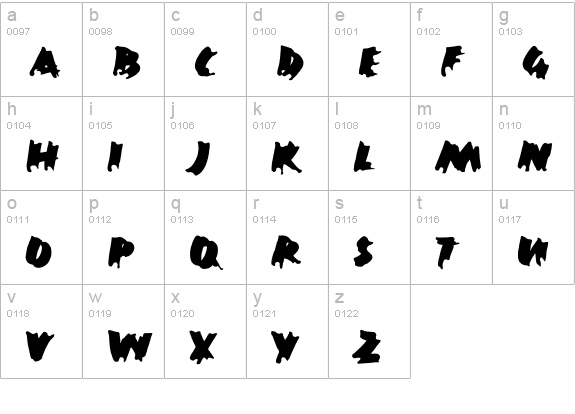
Ekttor Bold is a strong, high-contrast variant in the Ekttor typeface family \xE2\x80\x94 well suited to headlines, attention-grabbing titles, and strong calls-to-action.
Ekttor Bold font is a stylish and modern typeface that exudes confidence and boldness. With its strong, thick lines and sharp edges, this font is perfect for making a statement in any design project. Whether you're creating a striking poster, eye-catching logo, or impactful branding materials, Ekttor Bold will not disappoint. The best part? Ekttor Bold font is available for free download at FontsMarket.com. This means that you can easily access and use this impressive font in your projects without any cost. Don't miss out on the opportunity to enhance your designs with Ekttor Bold's powerful and impactful aesthetic. Download it now and take your creations to the next level!